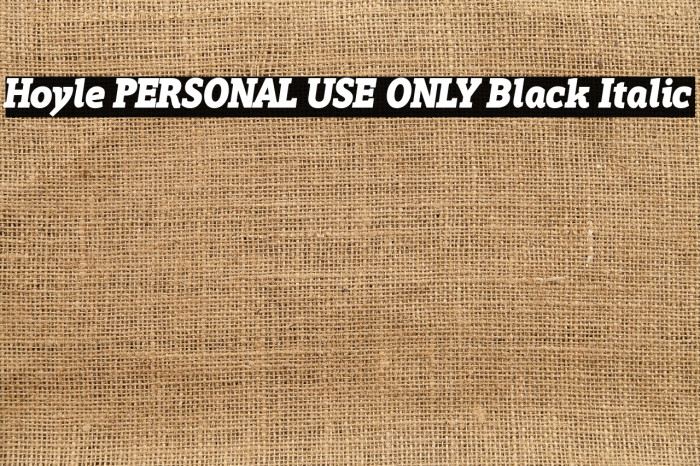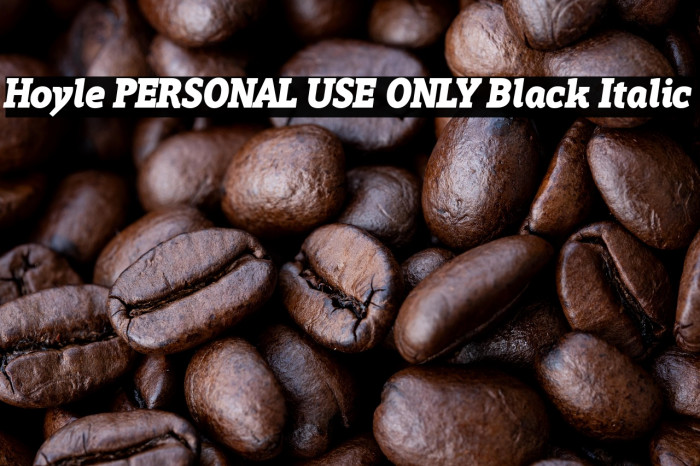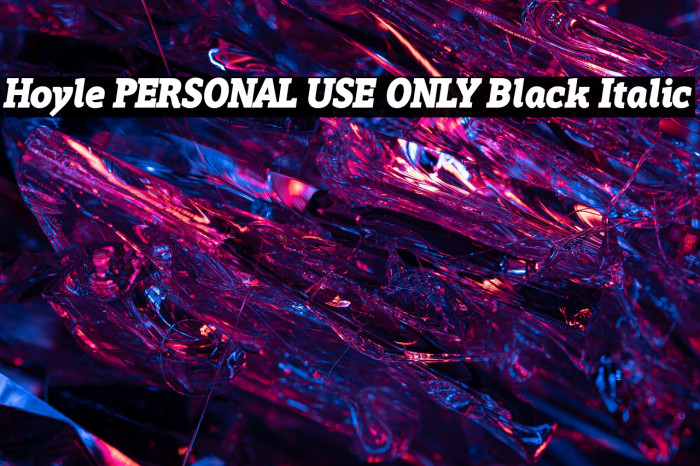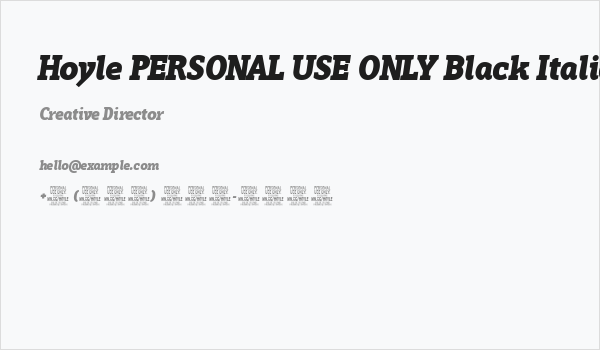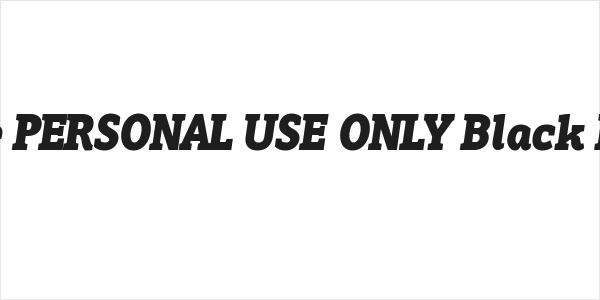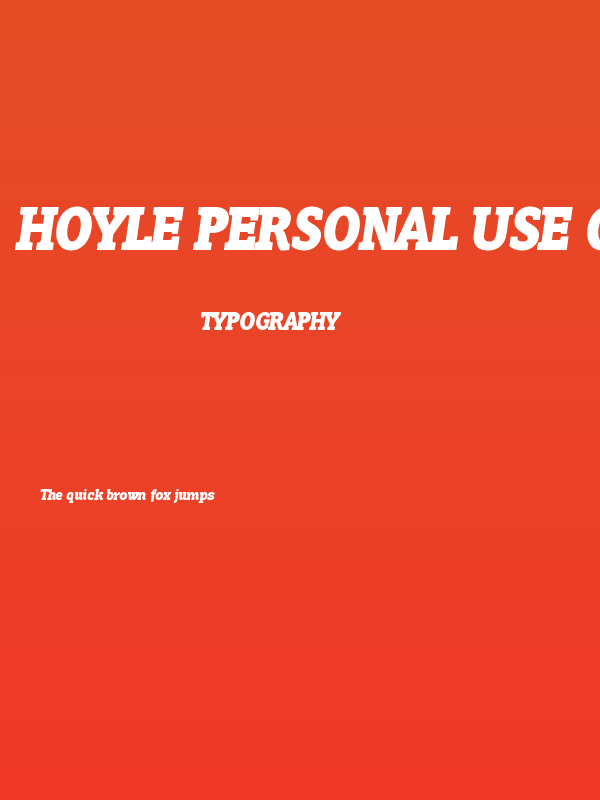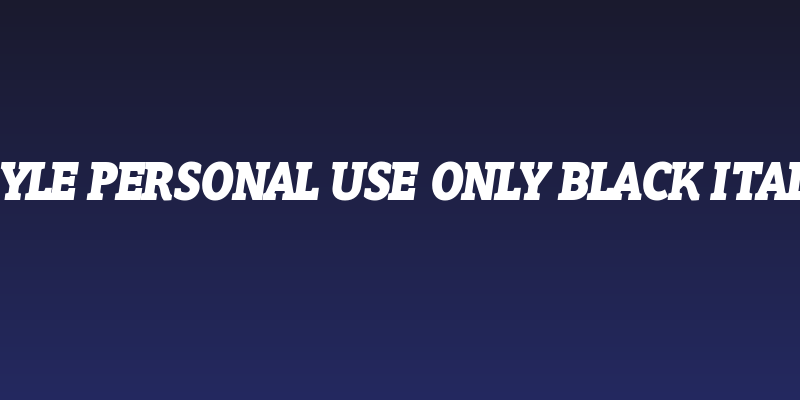
Hoyle PERSONAL USE ONLY Black Italic Font
Hoyle PERSONAL USE ONLY Black Italic Description
This font features a bold and dynamic style with a strong italic slant, giving it a sense of movement and energy. The characters are thick and robust, with a slightly condensed appearance that enhances their impact. The uppercase letters are particularly striking, with sharp angles and a confident presence. The lowercase letters maintain the same boldness, ensuring consistency across the typeface. The numbers and special characters are equally bold, making them stand out effectively. This font's overall design is modern and assertive, suitable for making a strong visual statement.